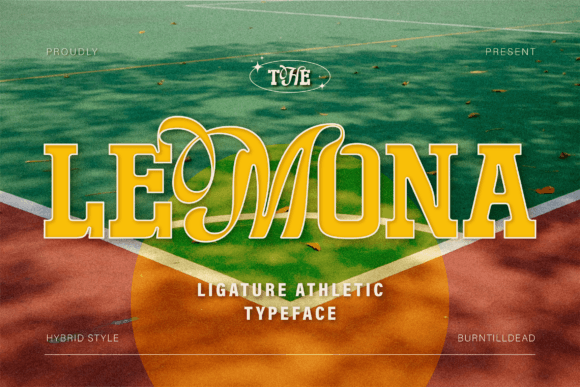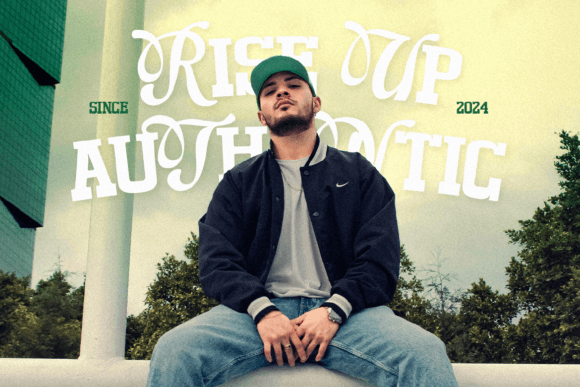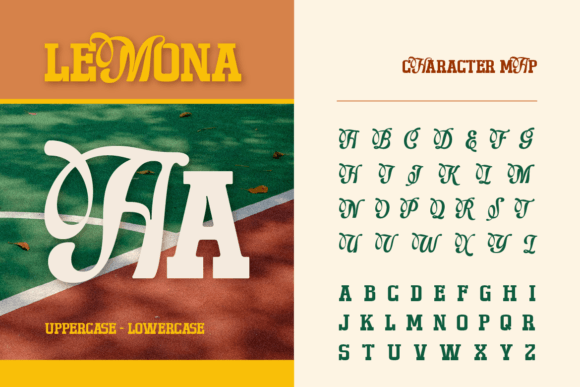
Introduction to Lemona Font
Proudly present, Lemona, is our hybrid font that combines the energetic characteristic of athletic font with bold and elegant script styles.
The result is a unique and versatile typeface that commands attention while maintaining a sense of elegance and readability Perfect for sports branding, motivational posters, stylish apparel, dynamic headlines, and impactful designs.
Key Features of Lemona Font